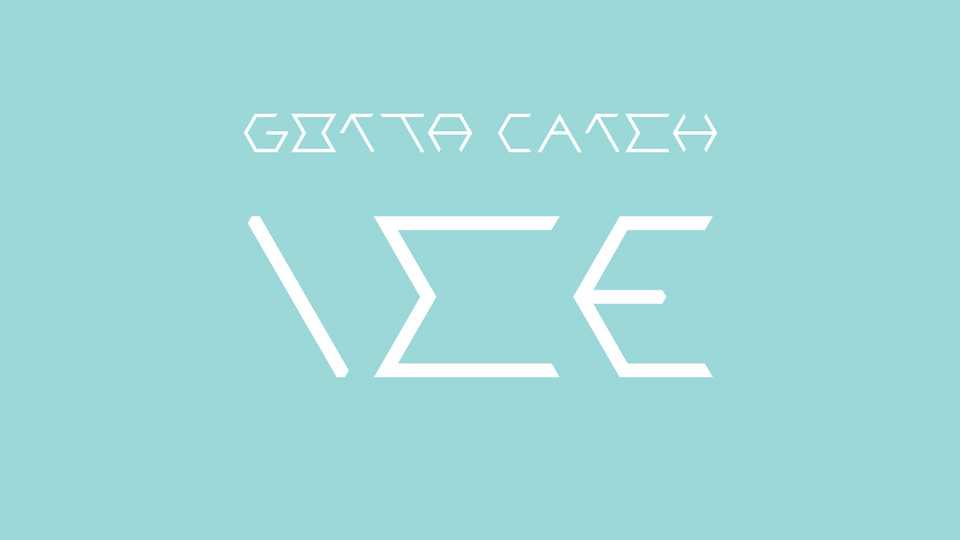
Download Gotta Catch Ice font, an experimental geometric typeface designed during a type design initiation workshop given by Lucas Descroix in March 2021.
Designer: Léo Gobin